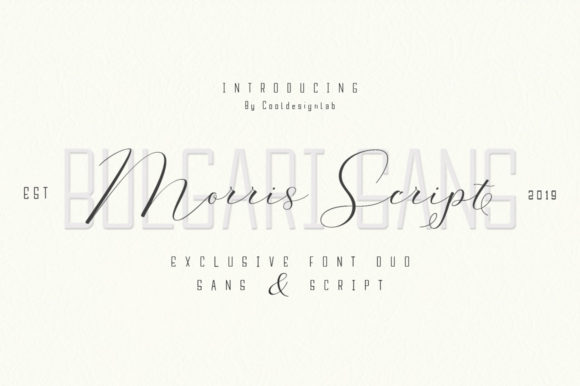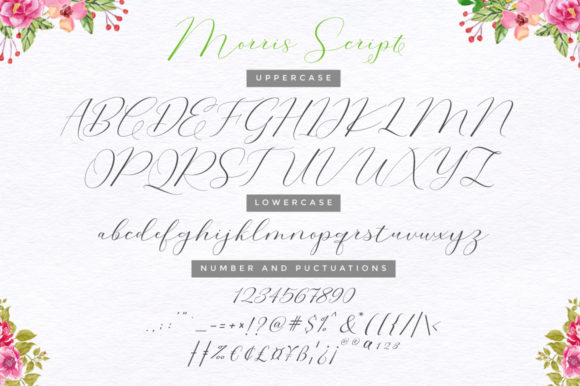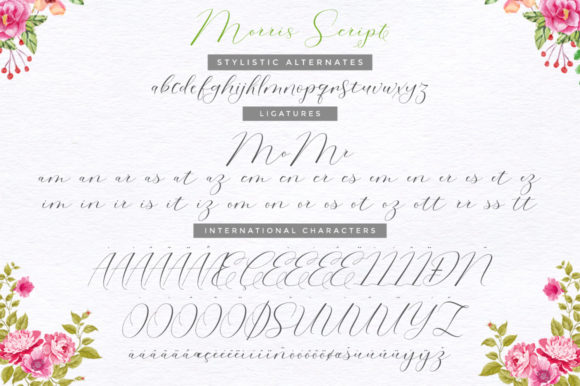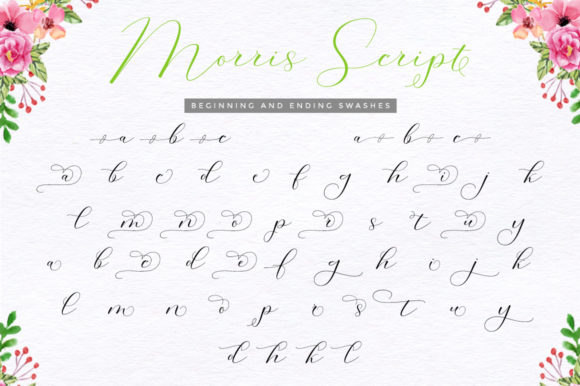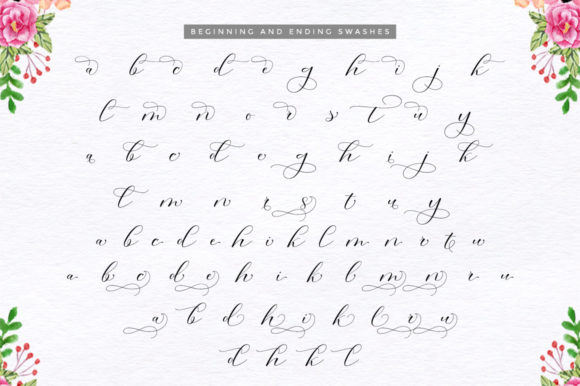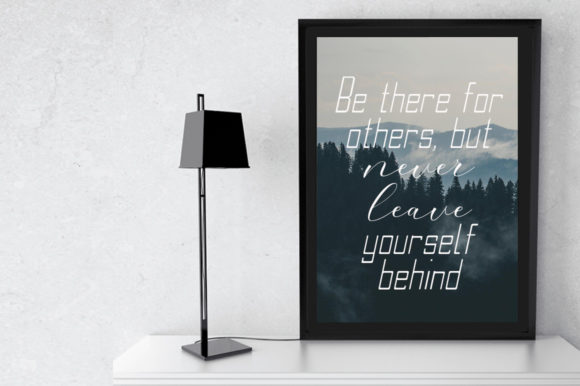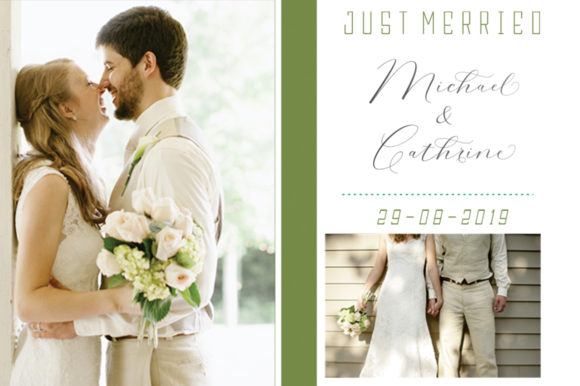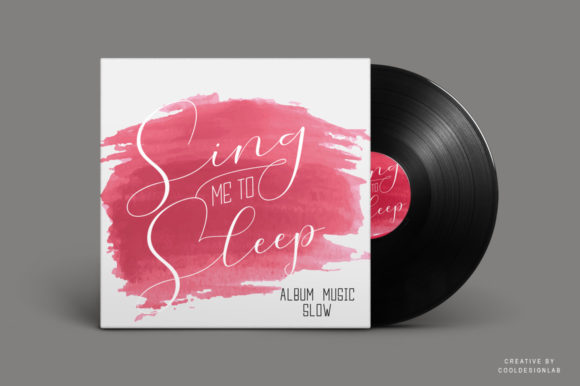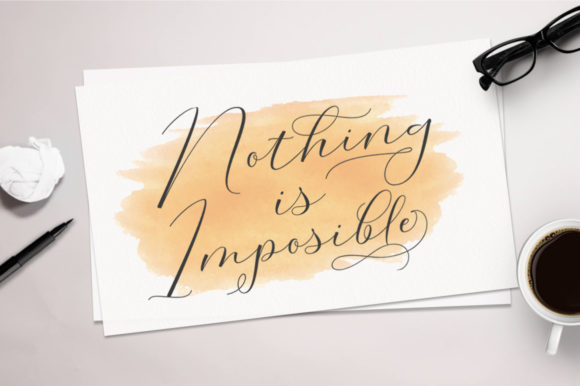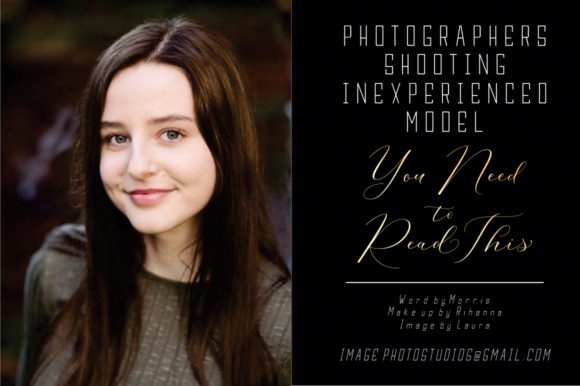
Morris Duo Font
Morris is an stunning and contemporary font duo with a unique twist. Fall in love with its bold charm, and turn any creative project into a true stand out!